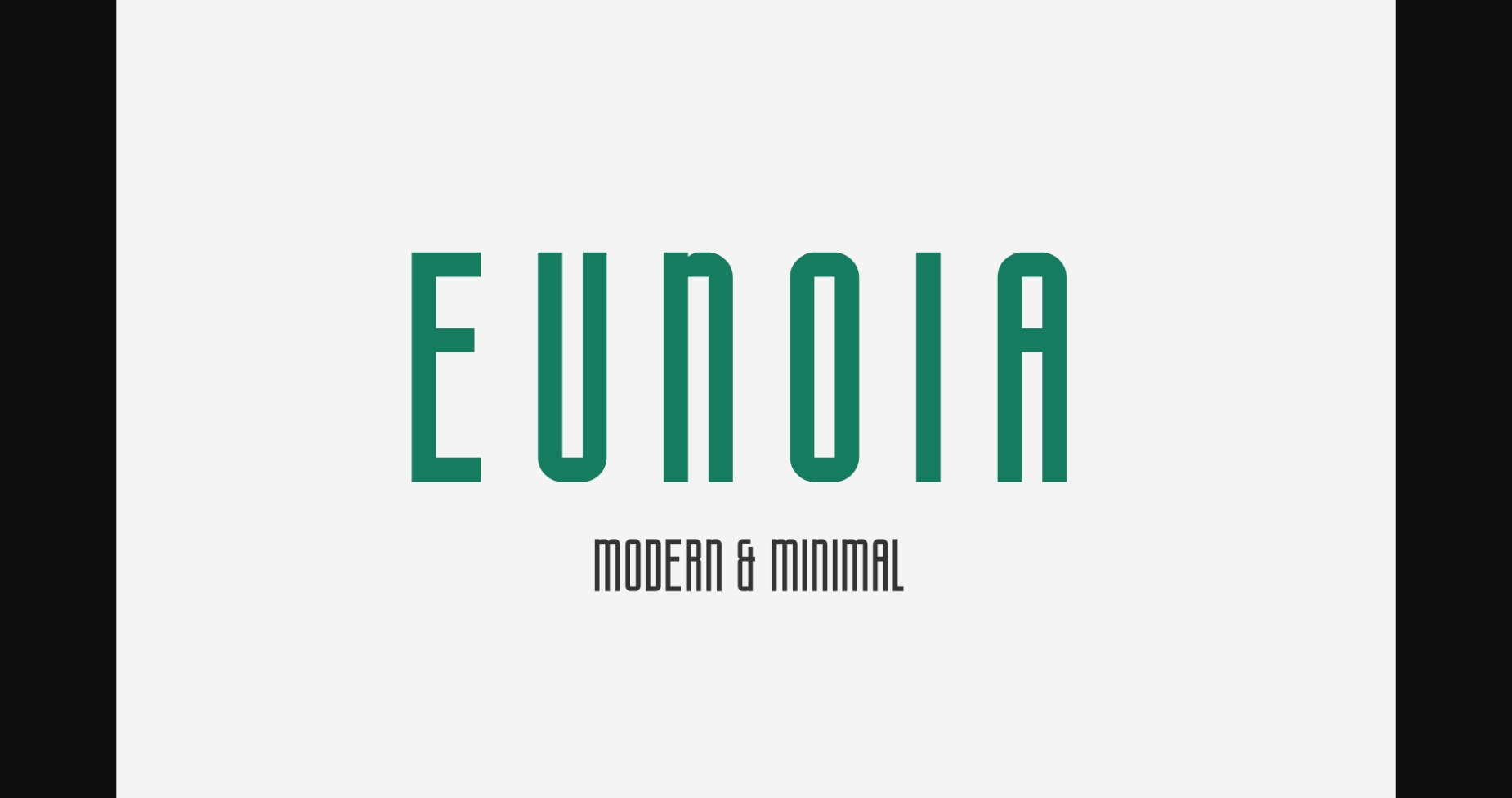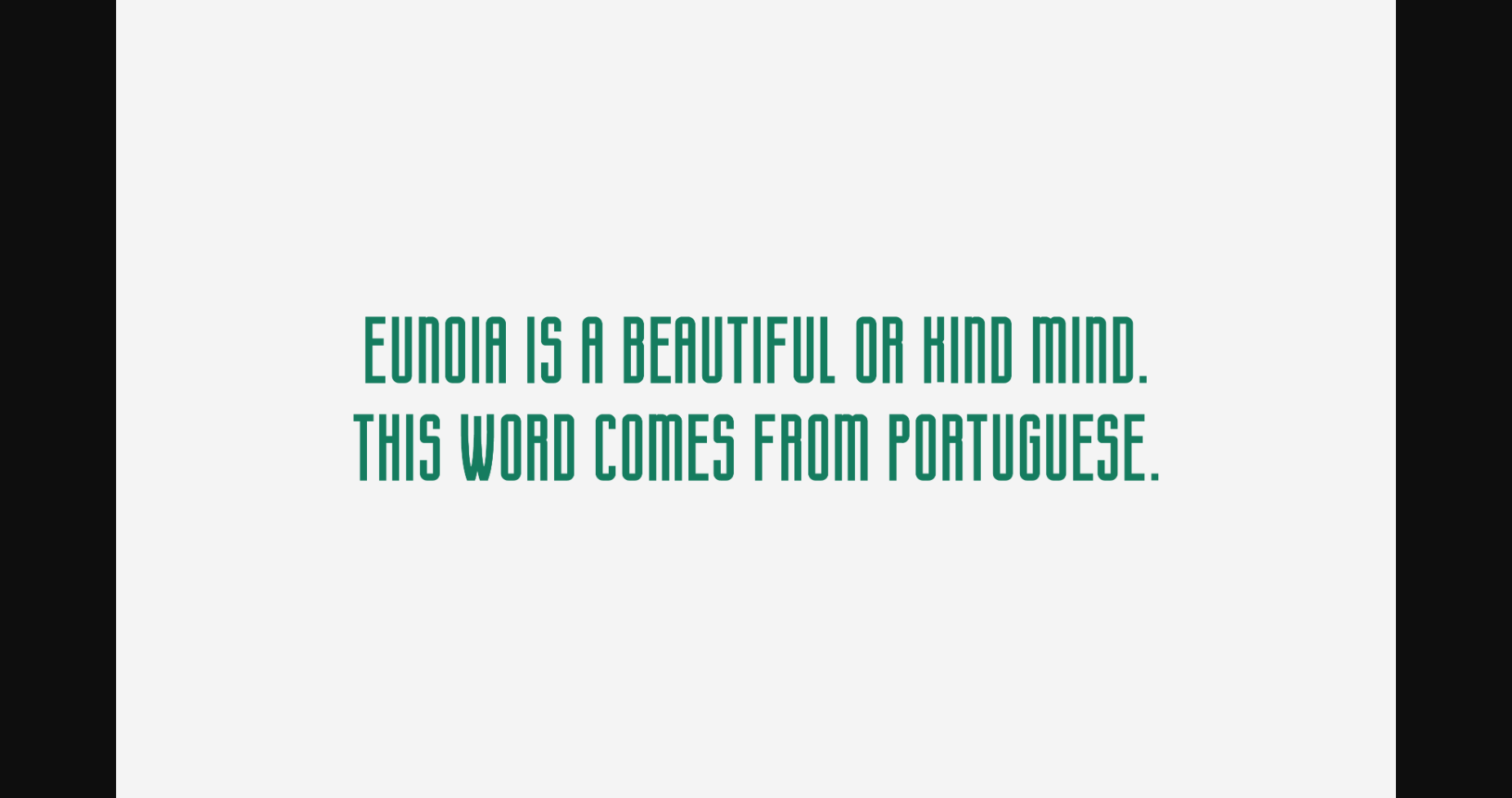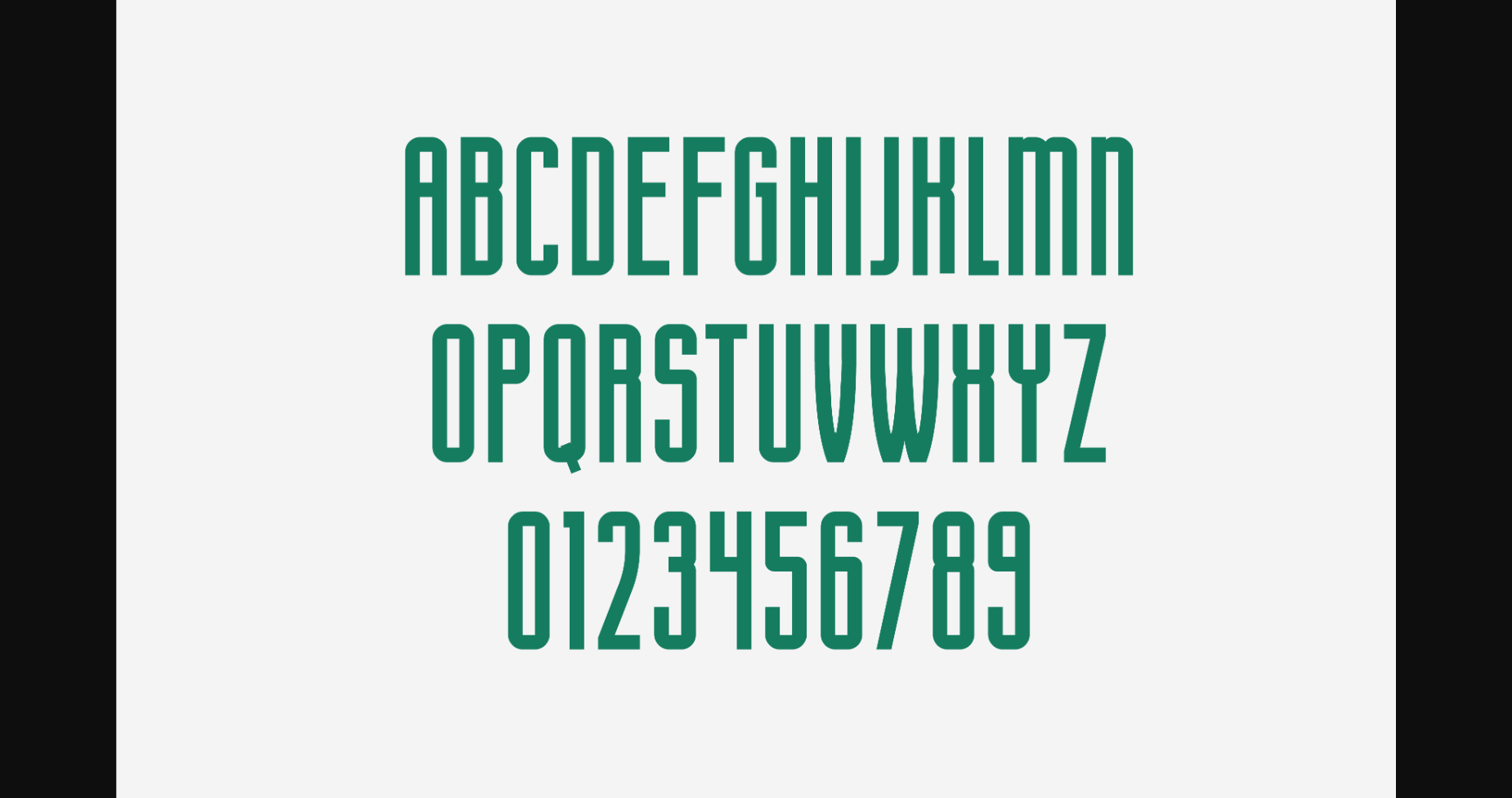
Eunoia Font
About Eunoia Font
Eunoia is a minimal, neat and clean sans serif font. It can easily be matched to an incredibly large set of projects, so add it to your creative ideas and notice how it makes them stand out!